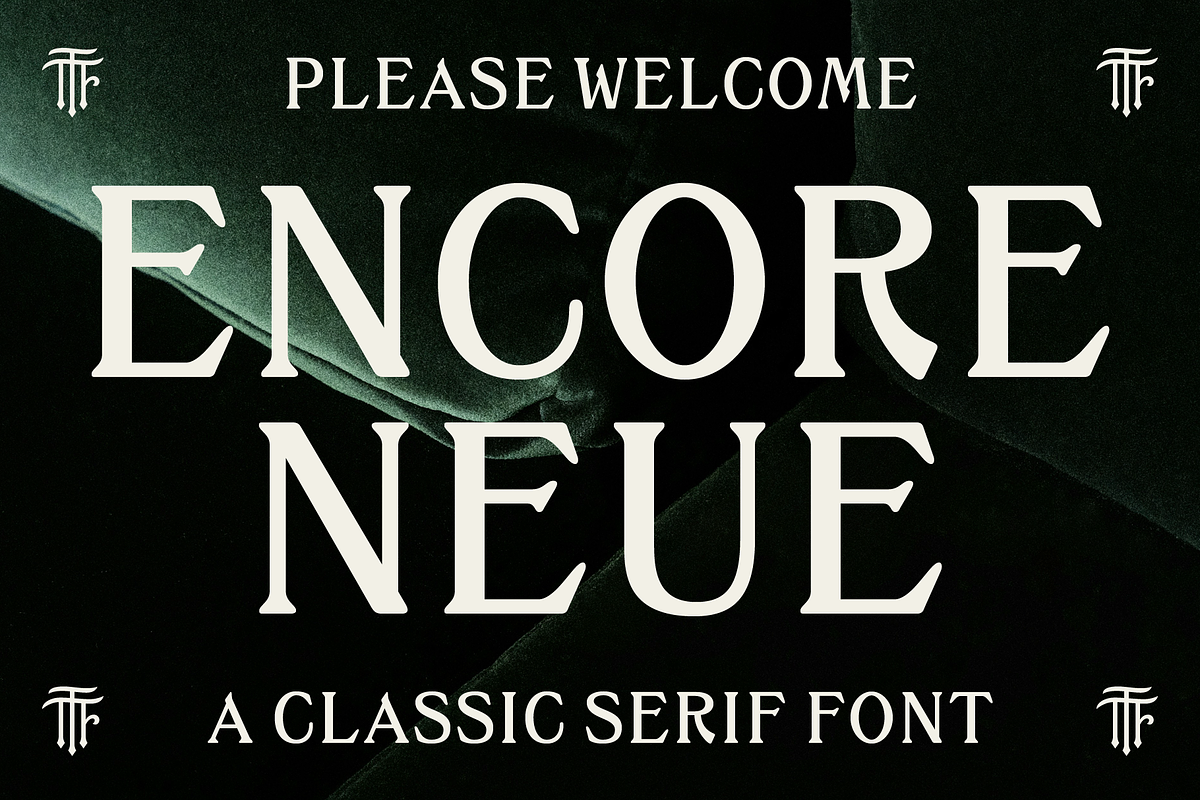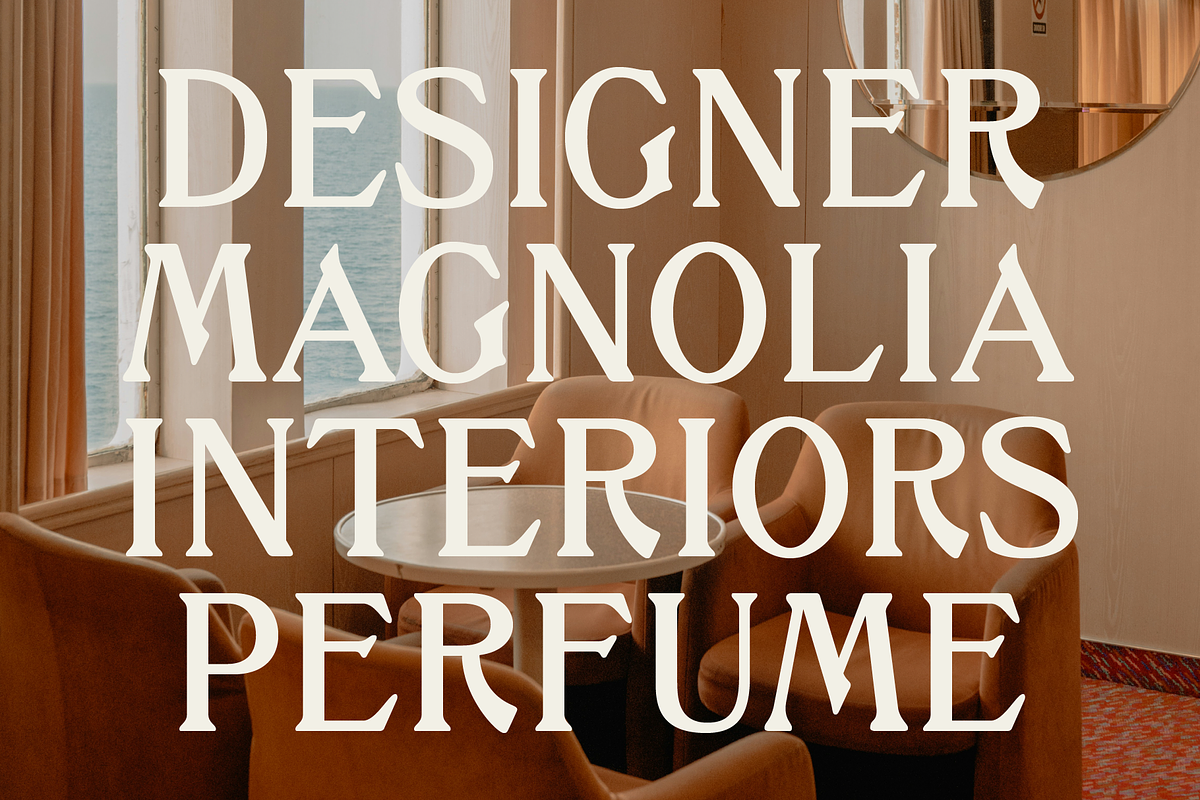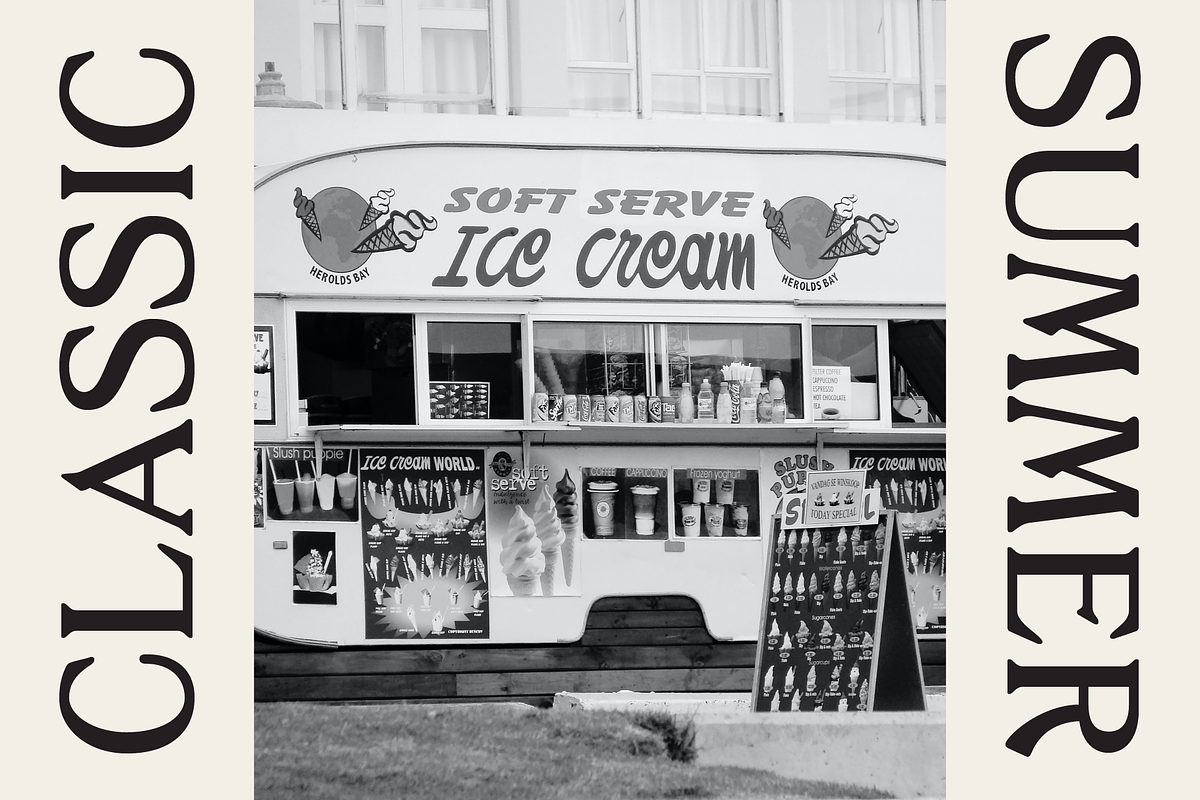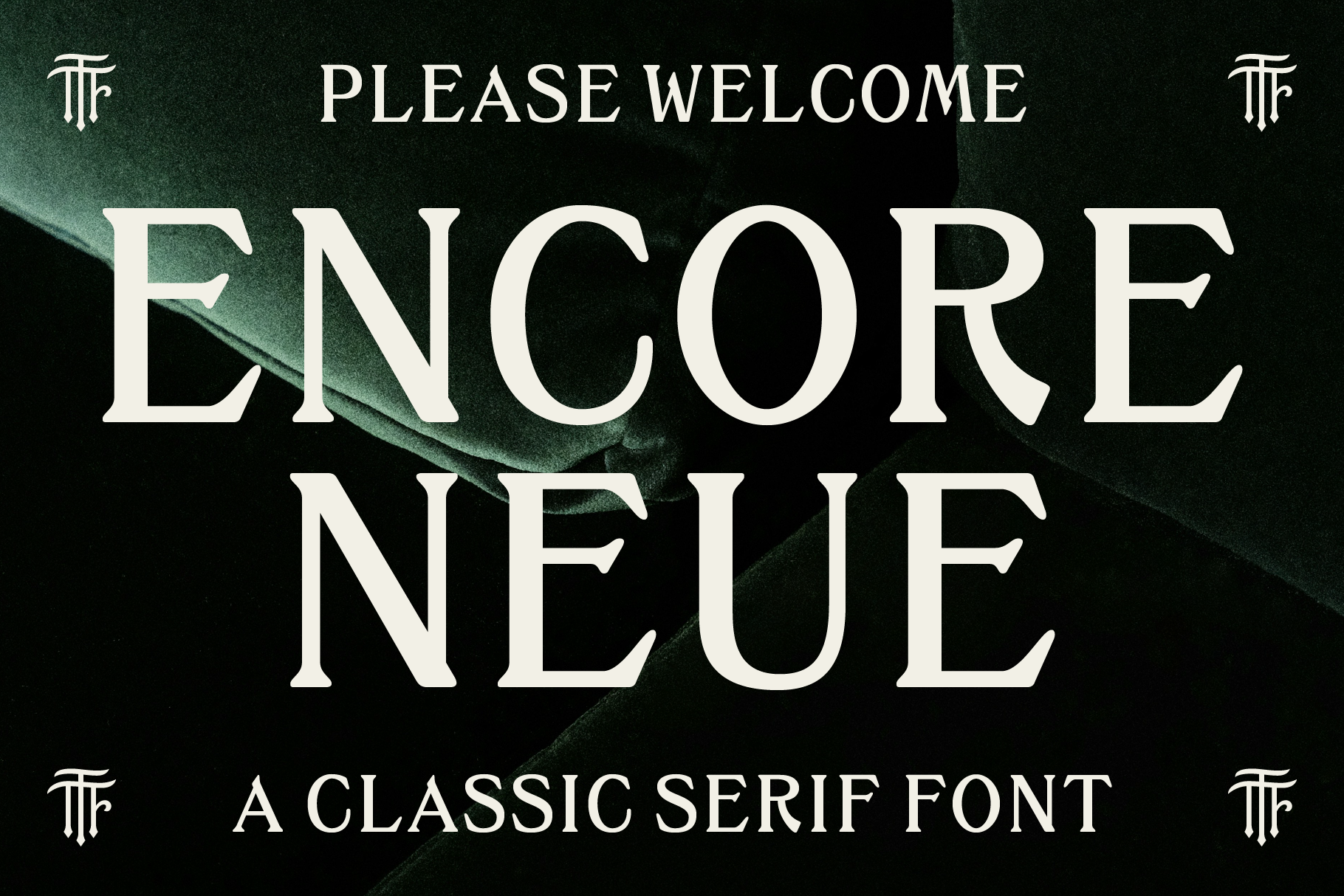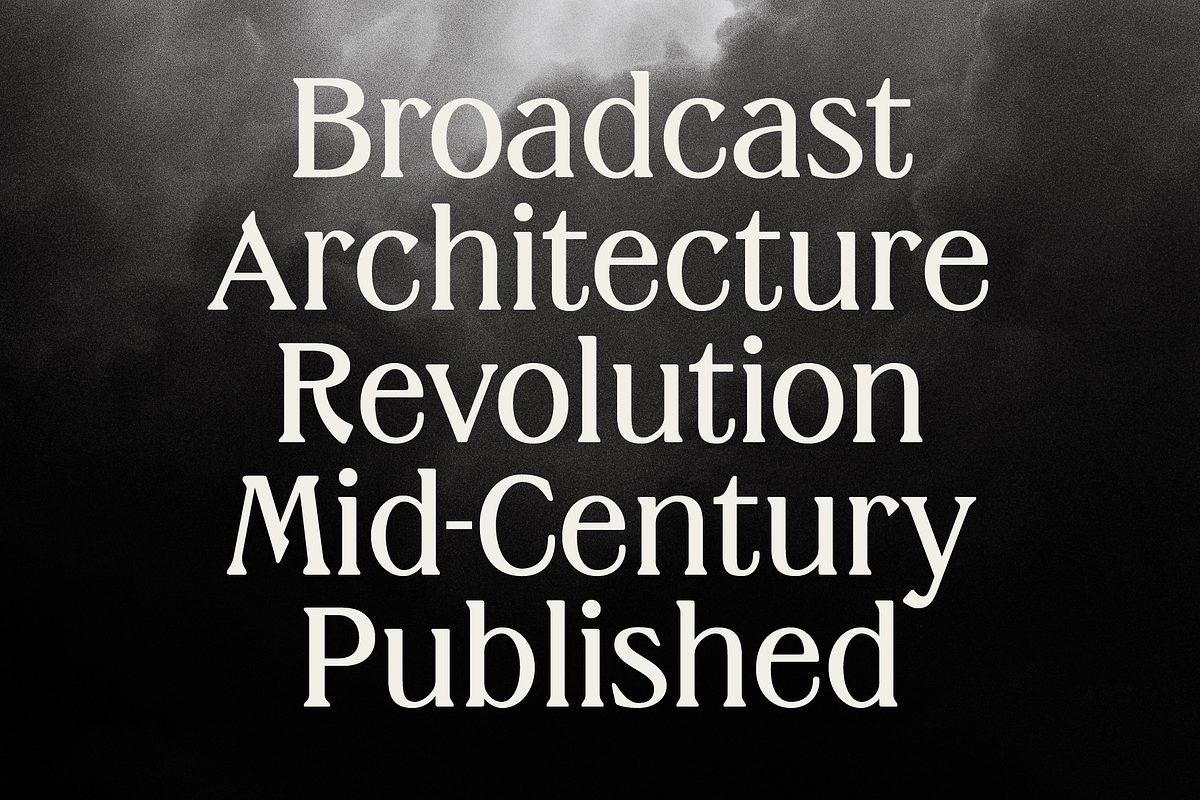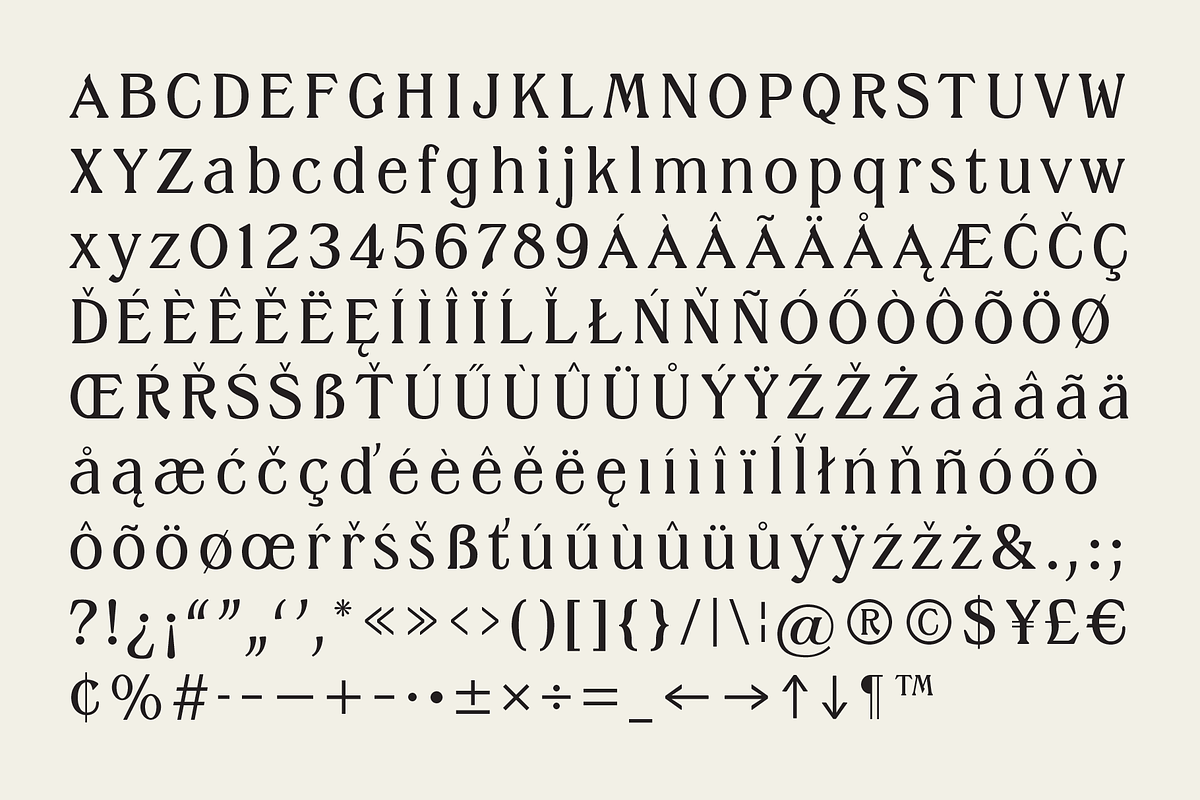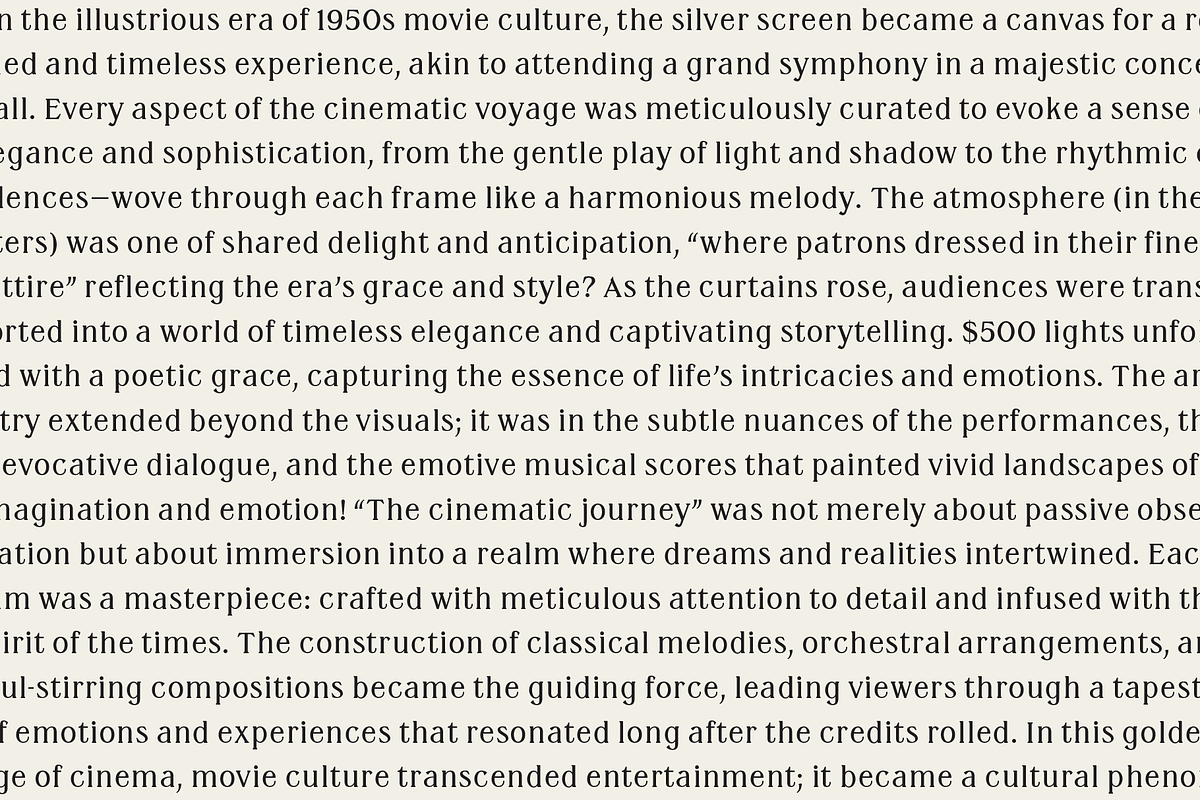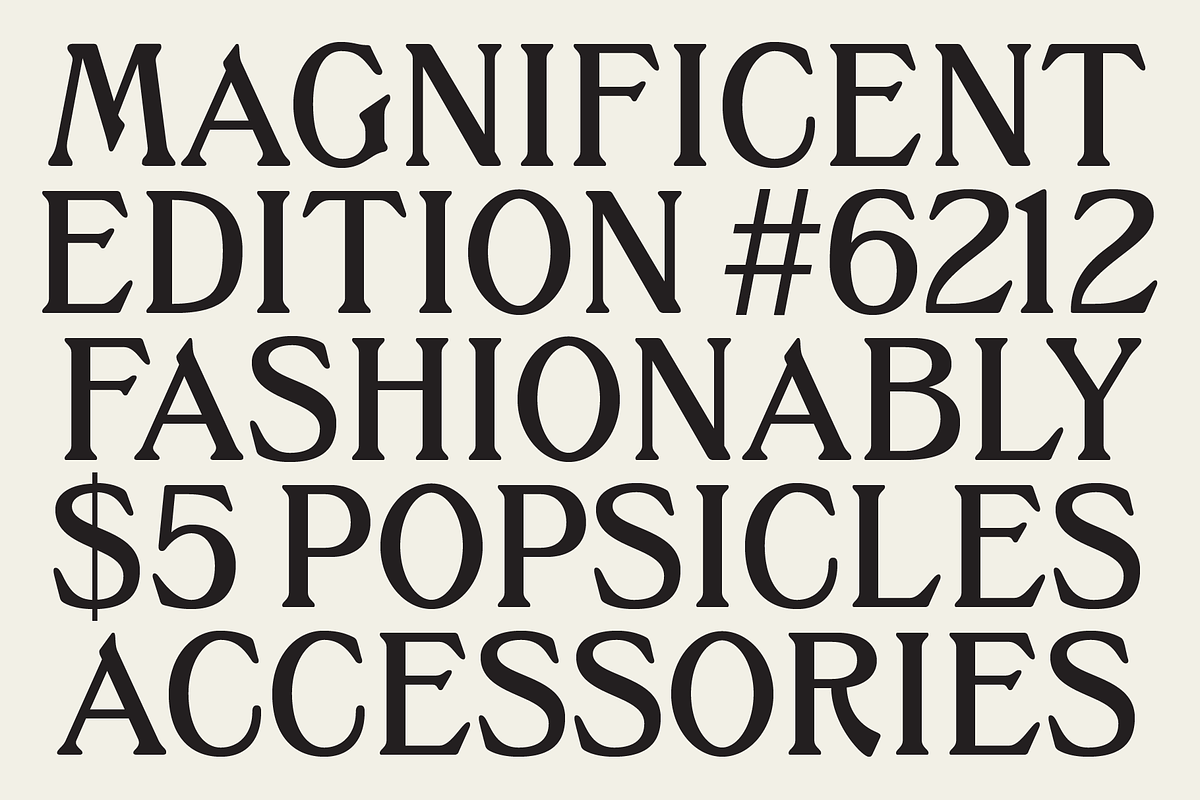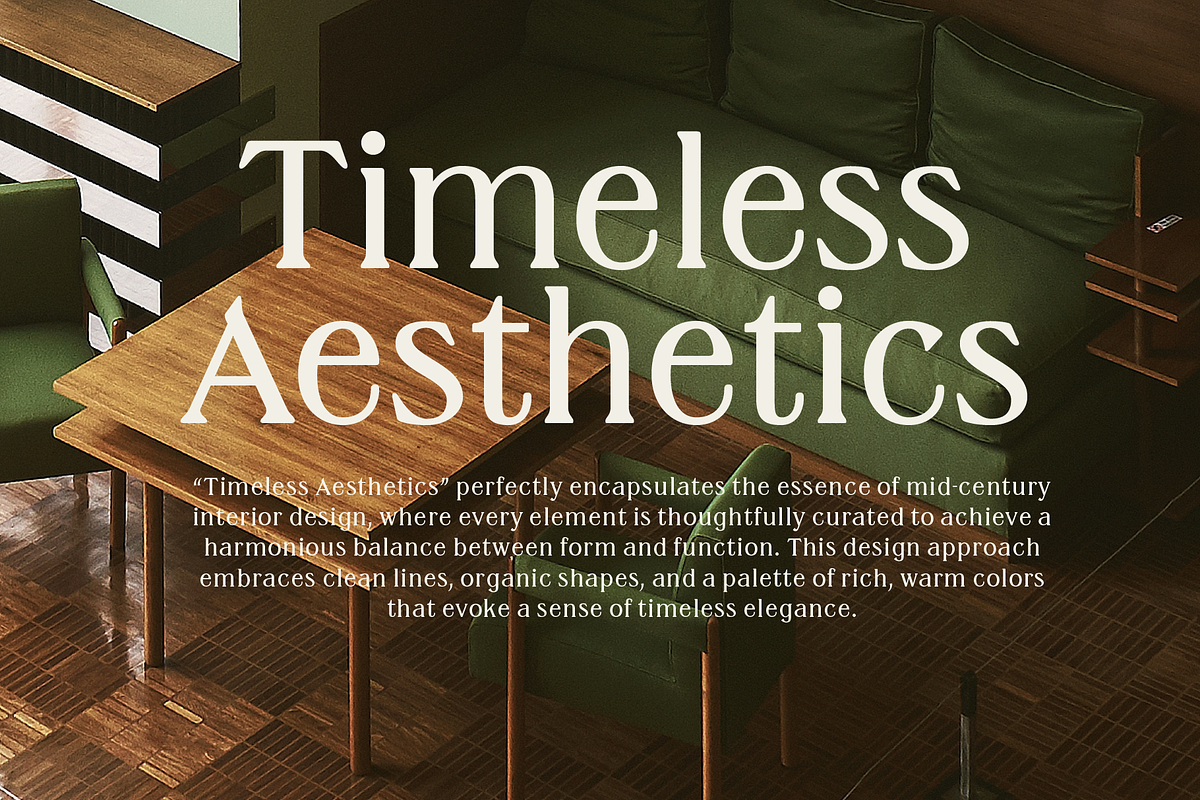
Encore Neue - A Timeless Serif Font
Introducing Encore Neue, a classic serif font! With its friendly rounded serifs and timeless design, it's ideal for publications, posters, signage, logos, and beyond. Plus, it boasts extended punctuation and multilingual support, making it versatile and perfect for any project.
Non-english characters: ÁÀÂÃÄÅĄÆĆČÇĎÉÈÊĚËĘÍÌÎÏĹĽŁŃŇÑÓŐÒÔÕÖØŒŔŘŚŠẞŤÚŰÙÛÜŮÝŸŹŽŻáàâãäåąæćčçďéèêěëęıíìîïĺľłńňñóőòôõöøœŕřśšßťúűùûüůýÿźžż